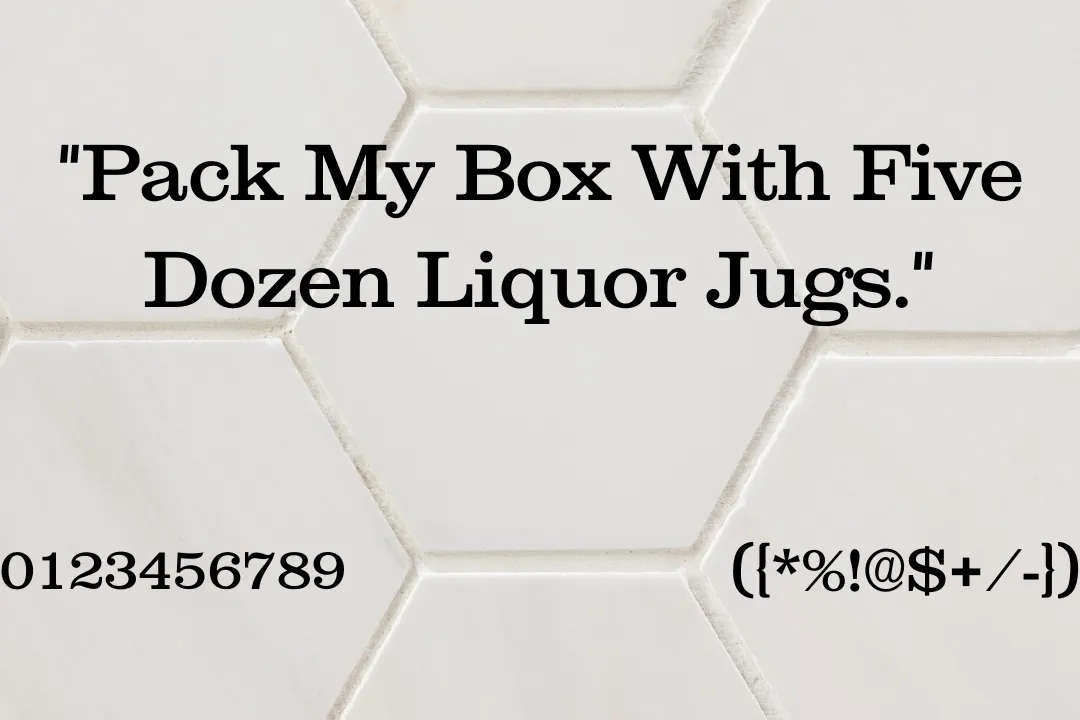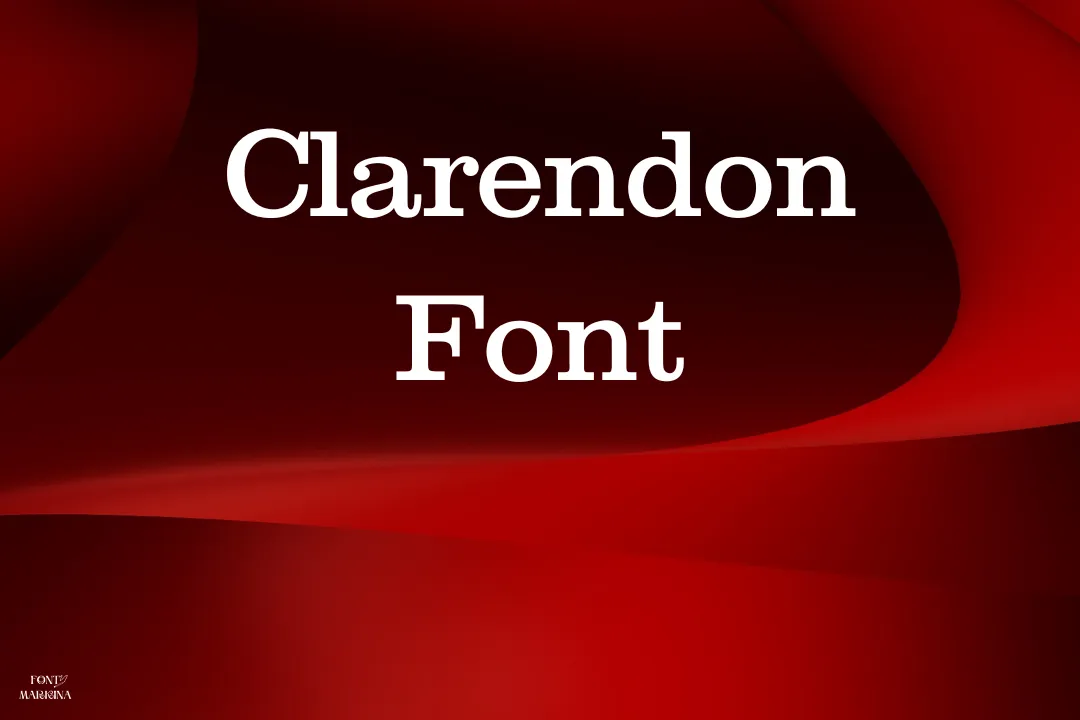
About Clarendon Font
Here, we introduce Clarendon Font which is a very classic texture. This typography falls in the classification of the Slab Serif family. Robert Besley is the main and original manufacturer of this family. And in 1826, Benjamin Fox help the designer of this family with its creation. The best thing about this family is that you can explore it on google.
In both OTF and TTF file structures, this texture is attainable. The main features behind its uniqueness are its definitive bold and Italics weights. Almost 462 unique and advanced glyphs of this family make it more classic.
Usage
Clarendon Font is commonly used for a bunch of display and professional purposes, like headlines, flyers, signatures, and posters. Further, this family has been used in varied films and different online video games.
It is also widely used in technology and conveyance and also in engineering projects. This texture is also commonly used in the structure of control panels and other technical tools. Mostly, Youtubers utilize this typography.
The pairing of this typeface is very strong and can be paired with Diablo Heavy font. The font is highly legible and can be used in print and digital media. In business plans, you can use them for presentations and reports.
| Designer | Robert Besley |
| Style | Slab Serif |